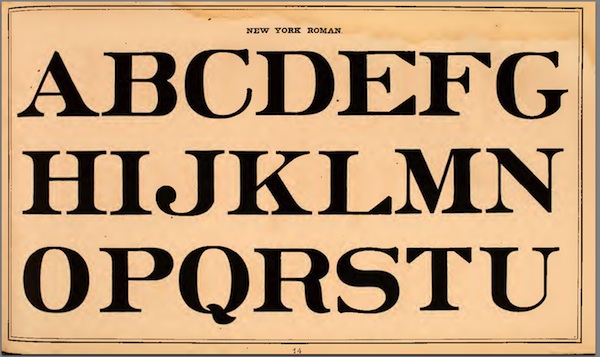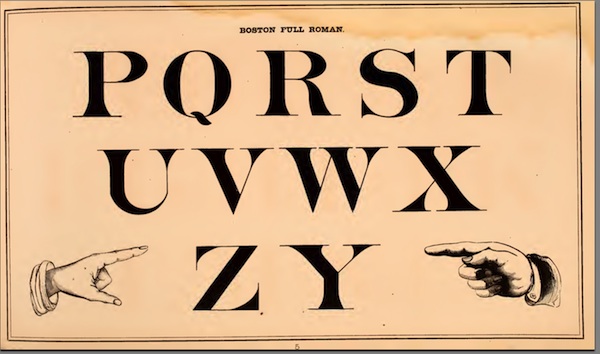
Speaking on the art of hand lettering, I found this link.
Not sure if it has been posted before on this site...if it has, I'm sorry for re-posting it.
Very nice. I especially like the hands - such elaborate cuffs & sleeves. And of course the discussion of the Boston Roman and the New York Roman:
"New York painters will not admit any style of letter to be superior or even equal to that in vogue in the greatest American city; they consider the Boston style "homely, weak, skinny and effeminate." It must be admitted that the New York style is the bolder of the two, and therefore a little more easily read; in fact, its peculiarities make it entirely different from the Boston letter, so distinct that a person accustomed to it could not fail to regard the Boston style as unsatisfactory; and undoubtedly one great reason why the New York painter cannot endure the Boston letter, and VICE VERSA, is the decided difference in the style of the other, from the one to which he has all his life been used to see."
Whoof. I guess people tended to stay close to home in those days. But that's what it takes to make regional dialects, and that's what we've lost with computerized fonts - my Helvetica or Futura looks just like yours, even if we're 2000 miles apart.
'fraid not buddy...my Helvetica looks better than yours...'Cause I know how to Kern.